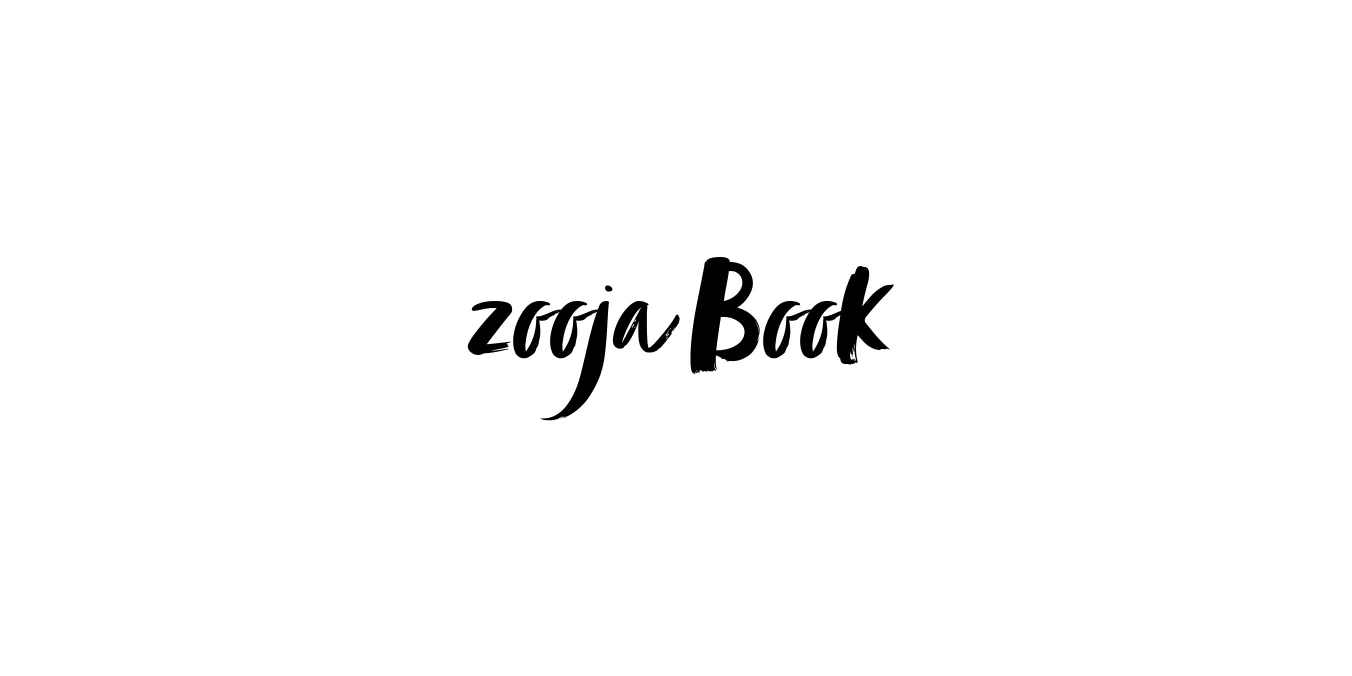
zooja Book
Designed by Emily Conners
| Category | Hand-drawn Script |
| Designer | Emily Conners |
Zooja Book is a whimsical, hand-lettered font family designed by Emily Conners of Emily Lime Design. It captures a charming, organic aesthetic that mimics authentic brush script and marker lettering, providing a handcrafted feel to any digital workspace. Part of the larger Zooja suite, the Book weight offers a slightly more balanced and legible profile compared to its more erratic counterparts, making it a versatile choice for both headlines and short passages of body text.
The font's design is heavily influenced by modern calligraphy and casual, doodle-style typography. It features a rhythmic bounce and varying stroke widths that contribute to its friendly, approachable personality. Since its introduction, Zooja Book has become a popular staple for crafters and boutique designers seeking to convey warmth, creativity, and a touch of playful elegance in their branding and editorial work.
zooja Book Best Uses
Perfect for adding a personal, handmade touch to celebratory messages and invitations.
Great for creating engaging, approachable quotes and brand announcements.
A wonderful choice for youth-oriented books, posters, and educational materials.
Ideal for artisanal brands, bakeries, and creative lifestyle businesses.